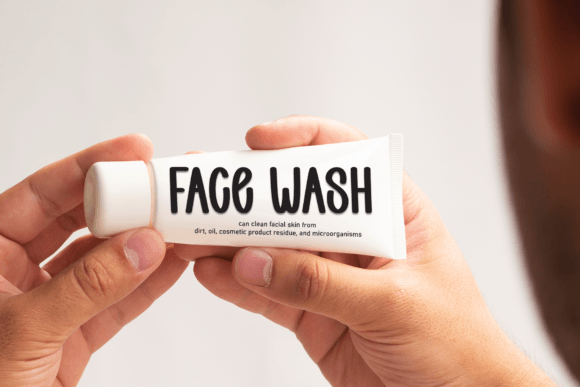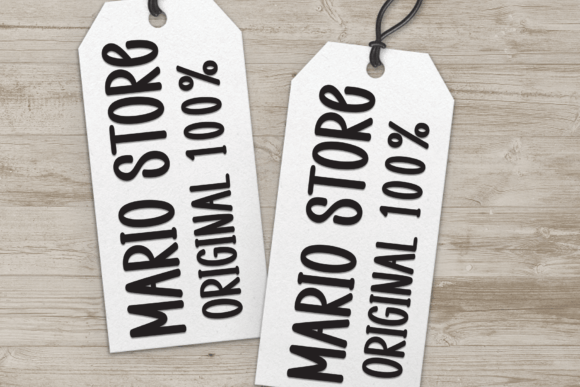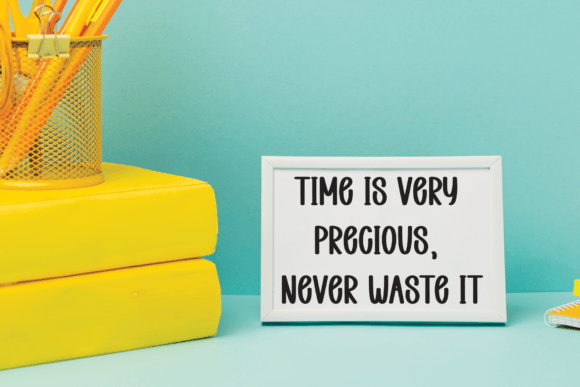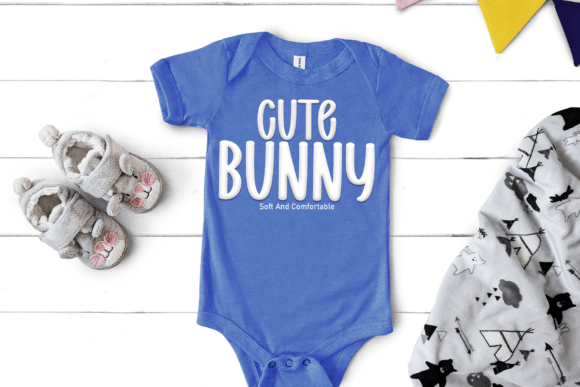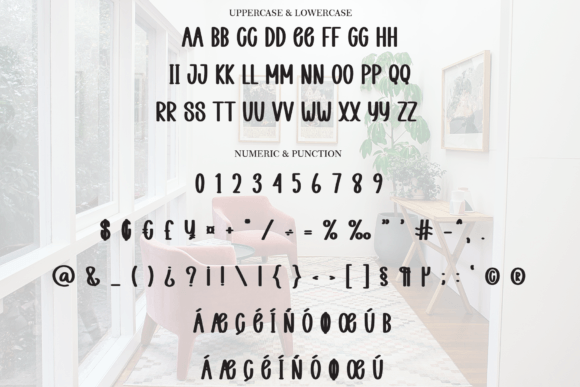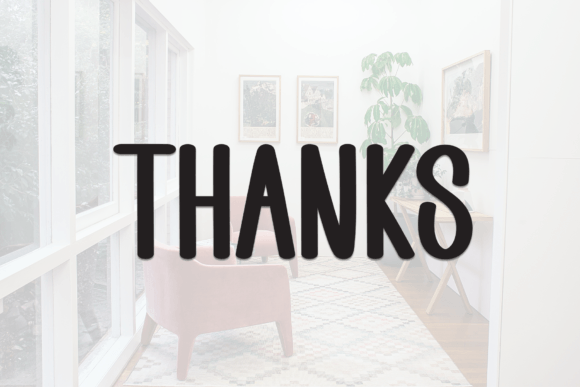
Introducing Guest Place Font: The Sweet and Friendly Handwritten Font for Your Design Needs
Are you looking for a font that can add a personal touch to your designs? Do you want to create beautiful wedding invitations, cards, or other materials that exude warmth and friendliness? Look no further than Guest Place Font, a sweet and friendly handwritten font that’s perfect for a variety of design projects.
What is Guest Place Font?
Guest Place Font is a fresh and casual handwritten font that’s designed to bring a lovely touch to your designs. Its sweet and friendly style makes it ideal for writing wedding invitations, cards, or any other design that might need a personal and approachable feel. The font is carefully crafted to provide a unique and elegant look that’s sure to impress.
Key Features of Guest Place Font
- Sweet and Friendly Style: Guest Place Font has a warm and inviting style that’s perfect for creating designs that are personal and engaging.
- Handwritten Look: The font has a beautiful handwritten look that’s perfect for creating unique and personalized designs.
- Fresh and Casual: Guest Place Font is a fresh and casual font that’s ideal for creating designs that are relaxed and approachable.
- Versatile: The font is versatile and can be used for a variety of design projects, including wedding invitations, cards, and more.
Uses of Guest Place Font
Guest Place Font is a versatile font that can be used for a variety of design projects. Here are some of the most popular uses of the font:
- Wedding Invitations: Guest Place Font is perfect for creating beautiful wedding invitations that are personal and elegant.
- Cards: The font is ideal for creating greeting cards, birthday cards, and other types of cards that require a personal touch.
- Stationery: Guest Place Font can be used to create beautiful stationery, including letterheads, notebooks, and journals.
- Signage: The font can be used for signage, including welcome signs, directional signs, and more.
Benefits of Using Guest Place Font
There are several benefits to using Guest Place Font for your design projects. Here are some of the most significant advantages:
- Unique and Elegant Look: Guest Place Font provides a unique and elegant look that’s sure to impress.
- Personal Touch: The font adds a personal touch to your designs, making them more engaging and relatable.
- Easy to Read: Guest Place Font is easy to read, making it perfect for designs that require a clear and concise message.
- Customizable: The font is customizable, allowing you to adjust the size, color, and style to suit your design needs.
Tips for Using Guest Place Font
Here are some tips for using Guest Place Font effectively:
- Use it for Headings and Titles: Guest Place Font is perfect for headings and titles, adding a personal touch to your designs.
- Pair it with Other Fonts: The font can be paired with other fonts to create a unique and interesting look.
- Adjust the Size and Color: Adjust the size and color of the font to suit your design needs and create a cohesive look.
Guest Place Font is a sweet and friendly handwritten font that’s perfect for adding a personal touch to your designs. Its fresh and casual style makes it ideal for creating beautiful wedding invitations, cards, and other materials that require a lovely touch. With its unique and elegant look, Guest Place Font is sure to impress and provide a lasting impression.